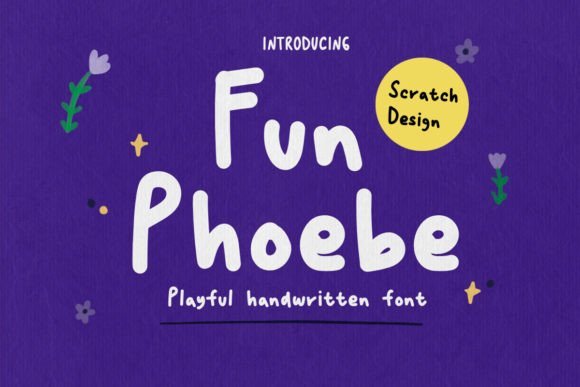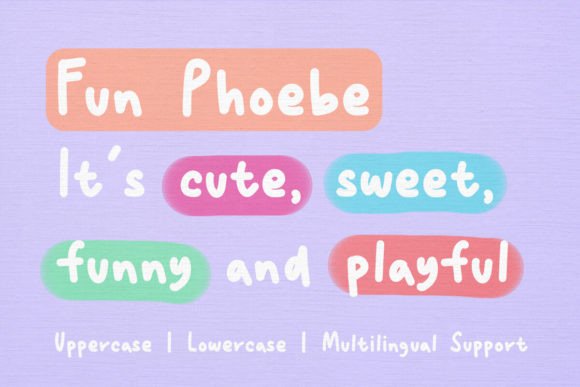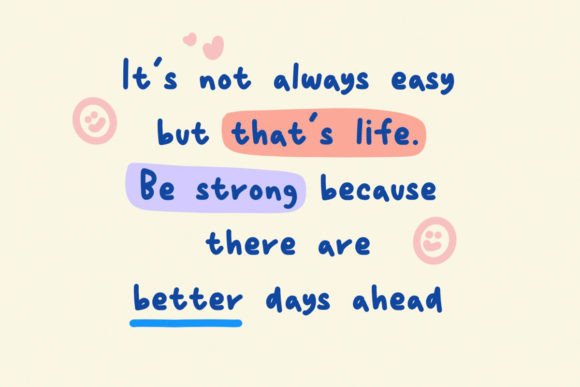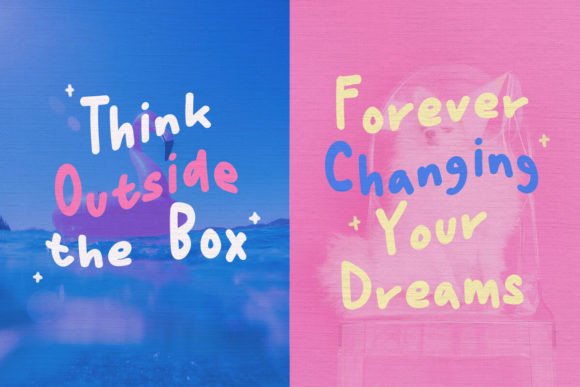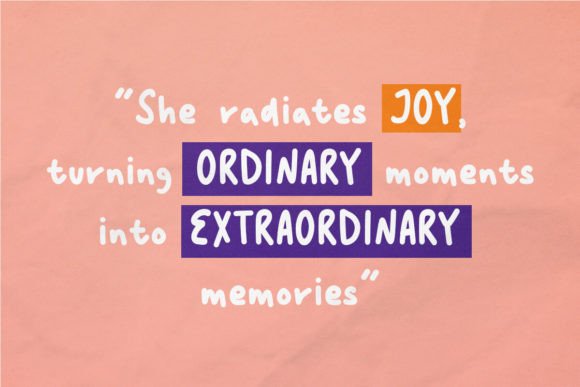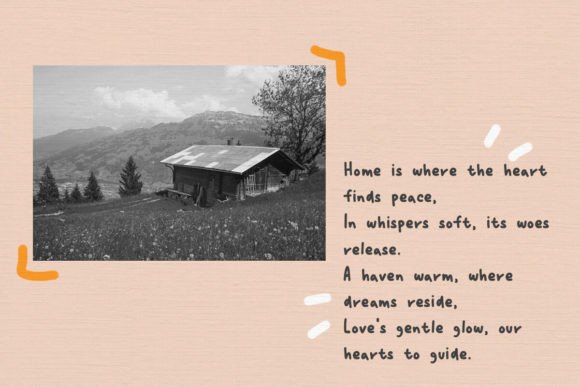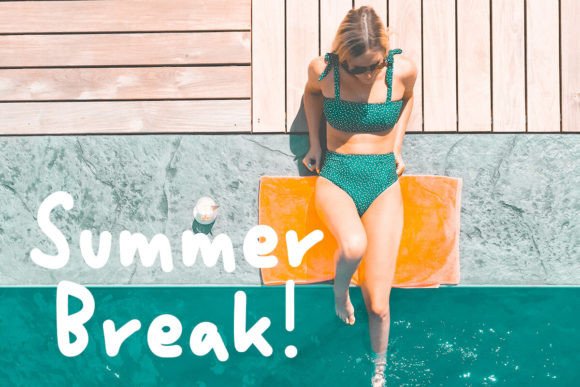
Where Creativity Meets Joy: Discover the Fun Phoebe Font
Have you ever been stuck on a design project, searching for the perfect font to bring your vision to life? As a designer, you know how challenging it can be to find that one special font that captures the essence of your idea. For me, it was a moment of browsing through a vintage bookstore, surrounded by the quirky and playful illustrations of children’s books, that sparked the idea for the Fun Phoebe Font.
This delightful handwriting font is designed to evoke the carefree spirit of a child’s playful script. Simple yet beautiful, Fun Phoebe Font exudes fun and charm, making it a valuable addition to any designer’s toolkit. Whether you’re working on a children’s book illustration, a poster, or a brand identity, the Fun Phoebe Font is the perfect way to bring a lively character to your projects.
Fun Phoebe Font Key Features
- Font Family: Fun Phoebe Font is a unique, hand-drawn font family consisting of multiple styles and weights.
- Unique Characteristics: Features a playful, whimsical design with irregular letterforms, making it ideal for creative and artistic projects.
- Font Styles: Includes multiple styles and weights, including bold, italic, and condensed variations, providing flexibility for designers and typographers.
Fun Phoebe Font Review
Overall, I think the Fun Phoebe Font has some great qualities that make it stand out, but it also has a few limitations that might prevent it from being the perfect choice for every designer.
- Casual, handwritten feel that’s perfect for adding a touch of personality to your designs.
- Wide range of weights and styles to choose from, making it easy to find the perfect fit for your project.
- Works well in both digital and print applications, from social media graphics to business cards and brochures.
- May be too playful or childish for more formal or professional projects.
- Some of the letters can be a bit messy or irregular, which might not be suitable for projects where precision is key.
- Not as versatile as some other fonts, and might not pair well with a wide range of other fonts or color schemes.
Overall, I think the Fun Phoebe Font is a great choice for designers who want to add a bit of whimsy and personality to their projects. Just be sure to use it in the right context, and don’t be afraid to experiment with different weights and styles to find the perfect fit.
Fun Phoebe Font Application Guide
The Fun Phoebe Font is ideal for:
1. Creating playful and eye-catching social media posts.
2. Designing children’s party invitations and decorations.
3. Adding a touch of whimsy to business presentations and marketing materials.
Alternatives to “Fun Phoebe Font” for Designers
Great Vibes is a beautiful, handwritten script font perfect for adding a touch of elegance to your designs. It’s ideal for use in wedding invitations, greeting cards, and other creative projects where a personal touch is needed.
Compared to Fun Phoebe Font, Great Vibes has a more refined and sophisticated feel, making it suitable for a wider range of design applications. While Fun Phoebe Font is more playful and bubbly, Great Vibes is more versatile and can be used in both formal and informal contexts.
Alex Brush is a elegant, brush script font that’s perfect for adding a touch of sophistication to your designs. It’s ideal for use in logos, branding, and other creative projects where a high-end feel is needed.